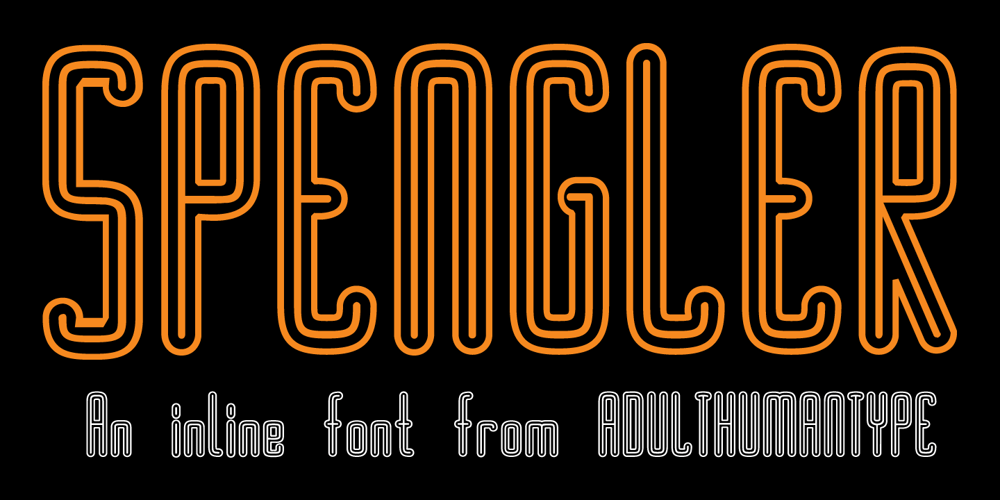
SPENGLER
SPENGLER font
SPENGLER Font Family was designed by published by AdultHumanMale. SPENGLER contains 1 styles and family package options. SPENGLER is a new inline font with over 180 GLYPHS, lots of Foreign Characters brand new and ready to be abused for a stupid price of $10.